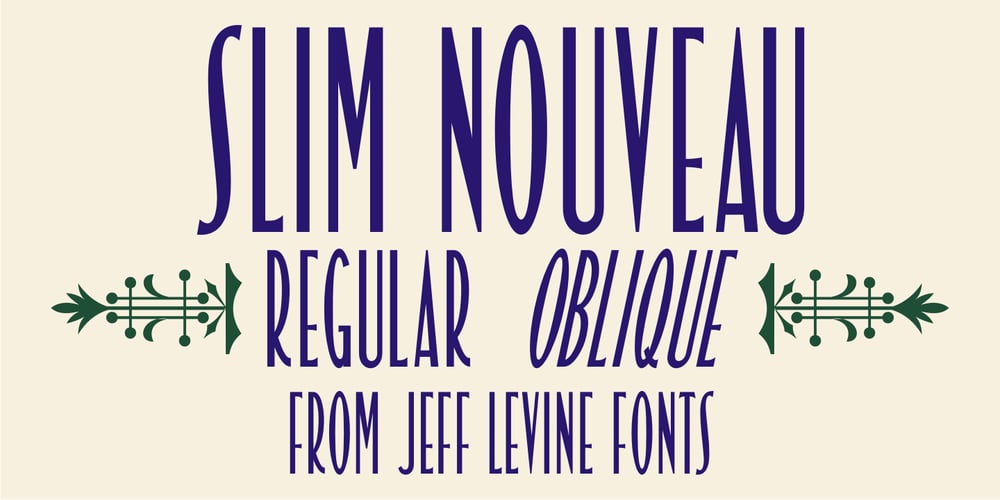
Slim Nouveau JNL Font Family was designed by Jeff Levine and published by Jeff Levine. Slim Nouveau JNL contains 2 styles and family package options. At times, one source of inspiration can generate more than one idea. This was the case with the 1918 sheet music for the song “You’re Still an Old Sweetheart of Mine”. The cover displays the title in a hand lettered narrow Art Nouveau Sans serif style. A number of characters were revised and the overall font was compressed by 25% to create a whole new look and feel. The end result became Slim Nouveau JNL. This was the same material used to originally model Easy Money JNL, which is truer to the original lettering design. The font is available in both regular and oblique versions.